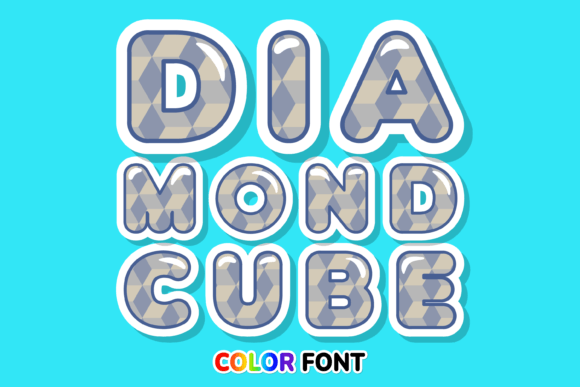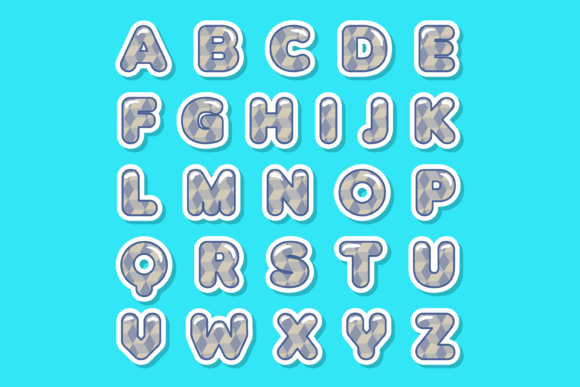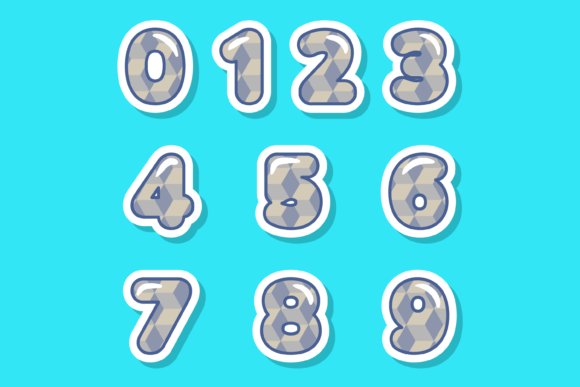
Diamond Cube Font
About Diamond Cube Font
Diamond Cube is a stunning and captivating color font that adds a touch of elegance and sophistication to your designs. Whether you’re working on custom designs, DIY crafts, or any creative project that calls for a lovely and eye-catching element, Diamond Cube is an excellent choice that will make your creations truly shine.
With its intricate diamond-shaped patterns and rich color palette, this font exudes a sense of luxury and allure. The geometric design of the diamond cubes creates a visually striking effect, adding depth and dimension to your typography and making it visually captivating.
Diamond Cube’s versatility allows it to be used in various applications. Whether you’re designing invitations, logos, posters, or even creating personalized items, this font will add a touch of glamour and refinement to your work, instantly elevating its overall aesthetic.
The font’s customizable features provide you with the flexibility to adjust the size, spacing, and color of the diamond cubes, allowing for endless creative possibilities. Its PUA encoding ensures easy access to all the unique glyphs and ligatures, making it simple to incorporate into your designs.
Diamond Cube’s color palette further enhances its visual impact. The rich and vibrant colors of the diamond cubes add a sense of opulence and sophistication to your designs, making them visually stunning and attention-grabbing.
Whether you’re a professional designer or a passionate DIY enthusiast, Diamond Cube offers an amazing opportunity to infuse your projects with a touch of elegance and a dash of luxury. Its intricate design and exquisite color combinations make every letter a statement, ensuring that your designs leave a lasting impression.
Choose Diamond Cube as your go-to color font and let its mesmerizing diamond-shaped patterns and rich colors add a touch of glamour and sophistication to your creative endeavors. With this font, your designs will have a unique and captivating look, making it an amazing choice for any project that requires a lovely touch and a hint of extravagance.